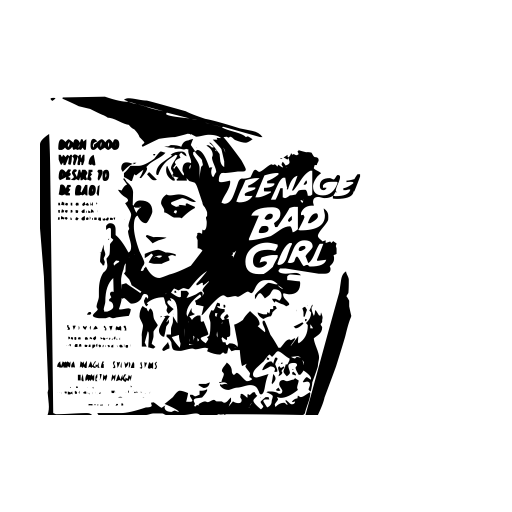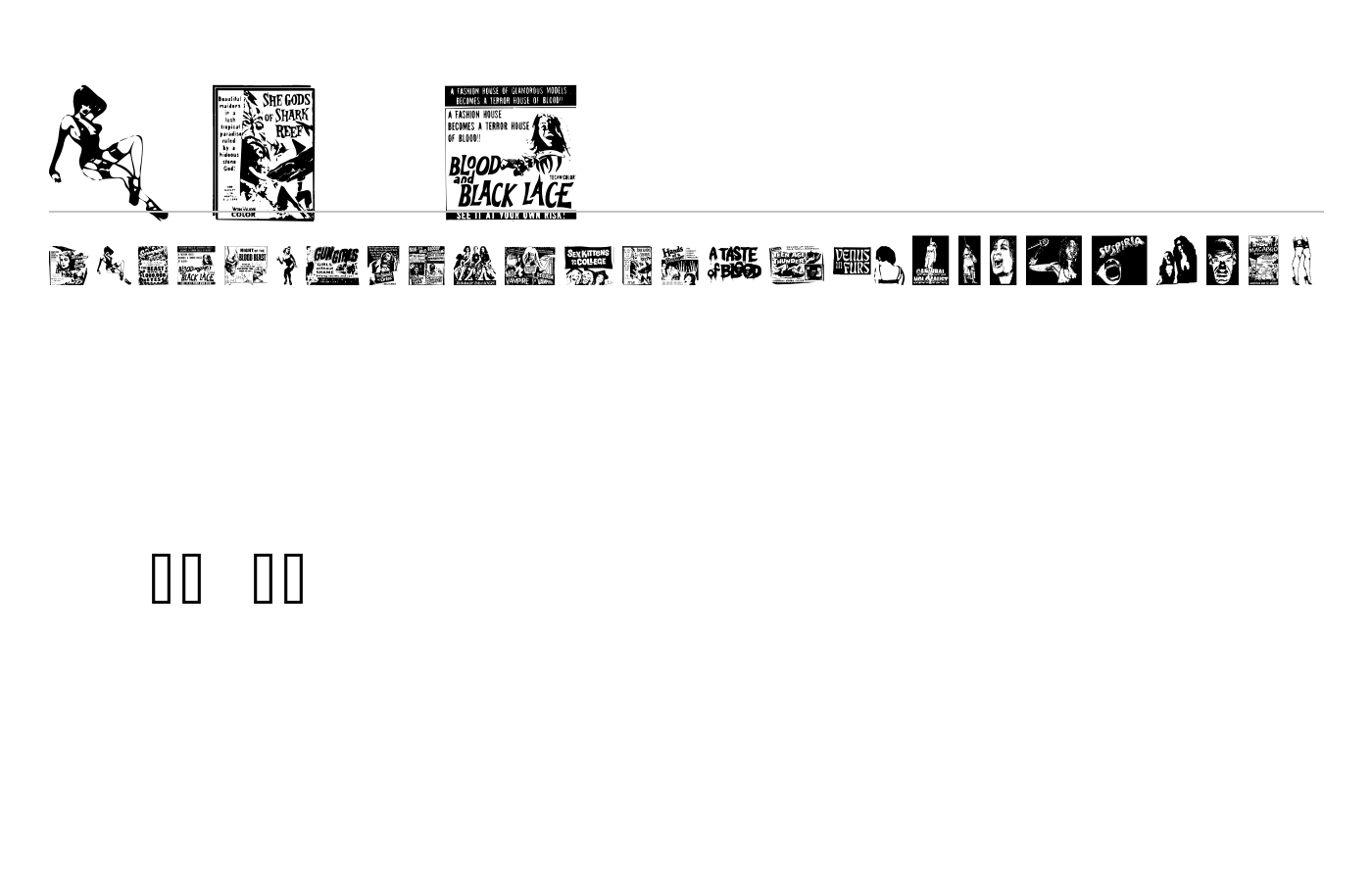
B Movie Dings is a quirky dingbat font featuring a collection of vintage horror and exploitation film-inspired illustrations. With its bold, high-contrast black-and-white graphics, it evokes a retro, campy atmosphere perfect for creative projects that want to capture a nostalgic, eerie, or cult-movie vibe. This font is ideal for decorative use in posters, flyers, and branding that seek to stand out with a playful yet unsettling aesthetic.
B Movie Dings Font
About B Movie Dings Font